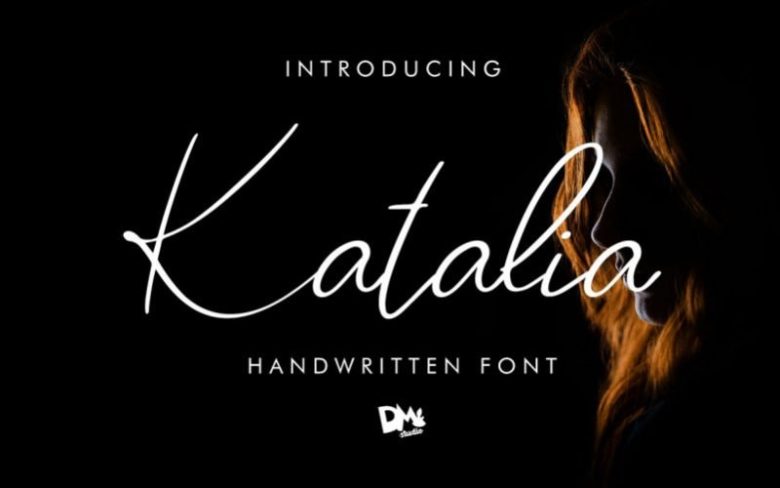
Katalia Handwritten Font
Introducing, Katalia Handwritten Font. It’s elegant, versatile and classy handwritten font, great choice for your exclusive design, template, branding, signature, logo, apparels labels, name card, invitations, advertisements, magazine, etc.